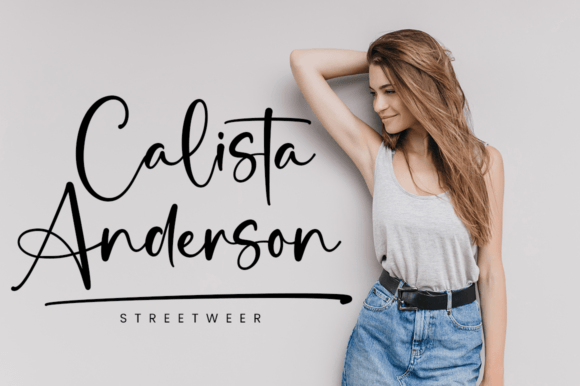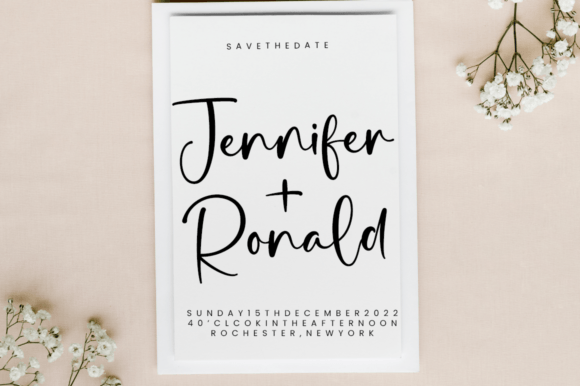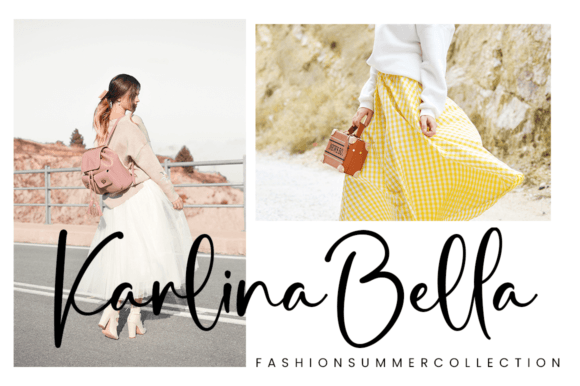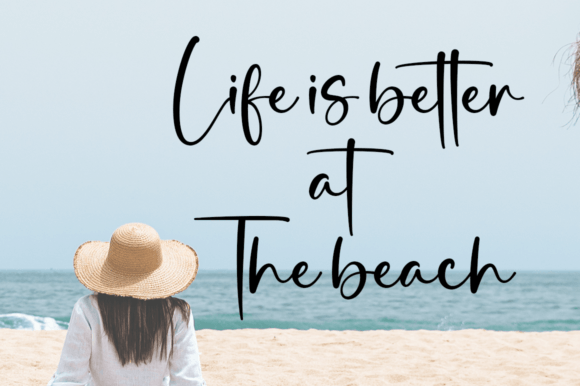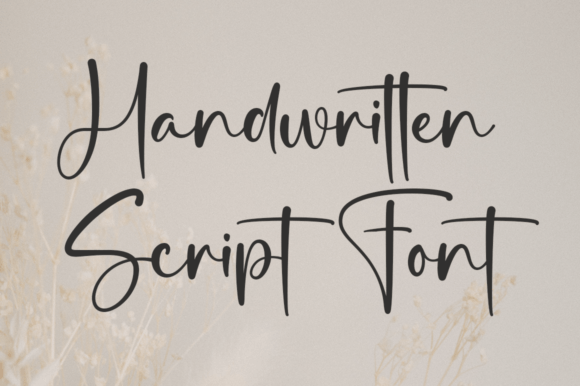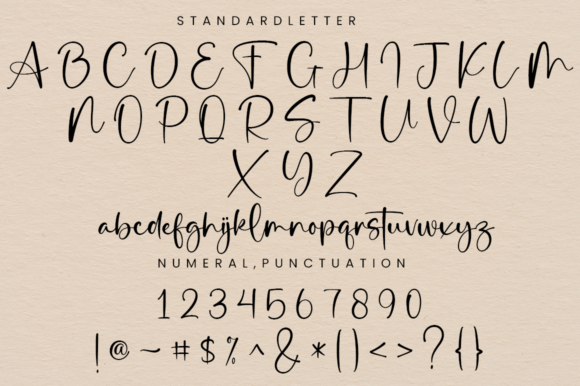
Stay Magical Font
“Stay Magical” is a delightful and delicate script font that radiates elegance and class. Designed with meticulous attention, this font is tailored for individuals seeking a beautiful and refreshing aesthetic for their designs.
The font’s loveliness is evident in its intricate details, making it an excellent choice for projects that demand a touch of sophistication. Whether used for branding, invitations, quotes, or any creative endeavor, “Stay Magical” adds a distinct charm that captivates the audience.
The delicate script imparts a sense of refinement, making it well-suited for those who desire an elegant look in their designs. This font is crafted to elevate your projects, giving them a unique and refreshing appeal.
In summary, “Stay Magical” is more than just a font; it’s a design asset that brings elegance and class to your creative work. Embrace its delicate script to infuse your designs with a beautiful and refreshing touch, making them stand out with a timeless and sophisticated charm.